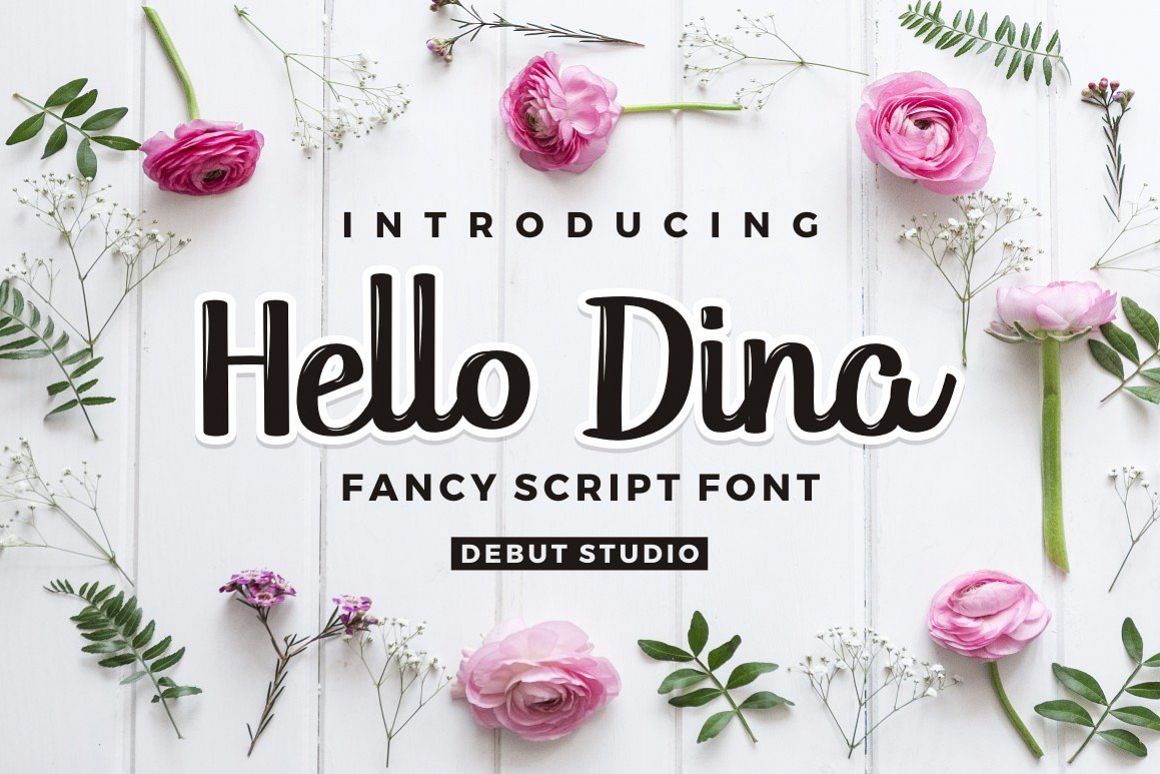
Hello Dina Script
Introducing Hello Dina Script
This font inspired from my handlettering,
that look fancy and cute, Suitable for the design of holiday cards, postcards, brochures, invitations, and other interesting design purposes.
- Uppercase, Lowercase, Punctuation
- Two different style, Regular and styles